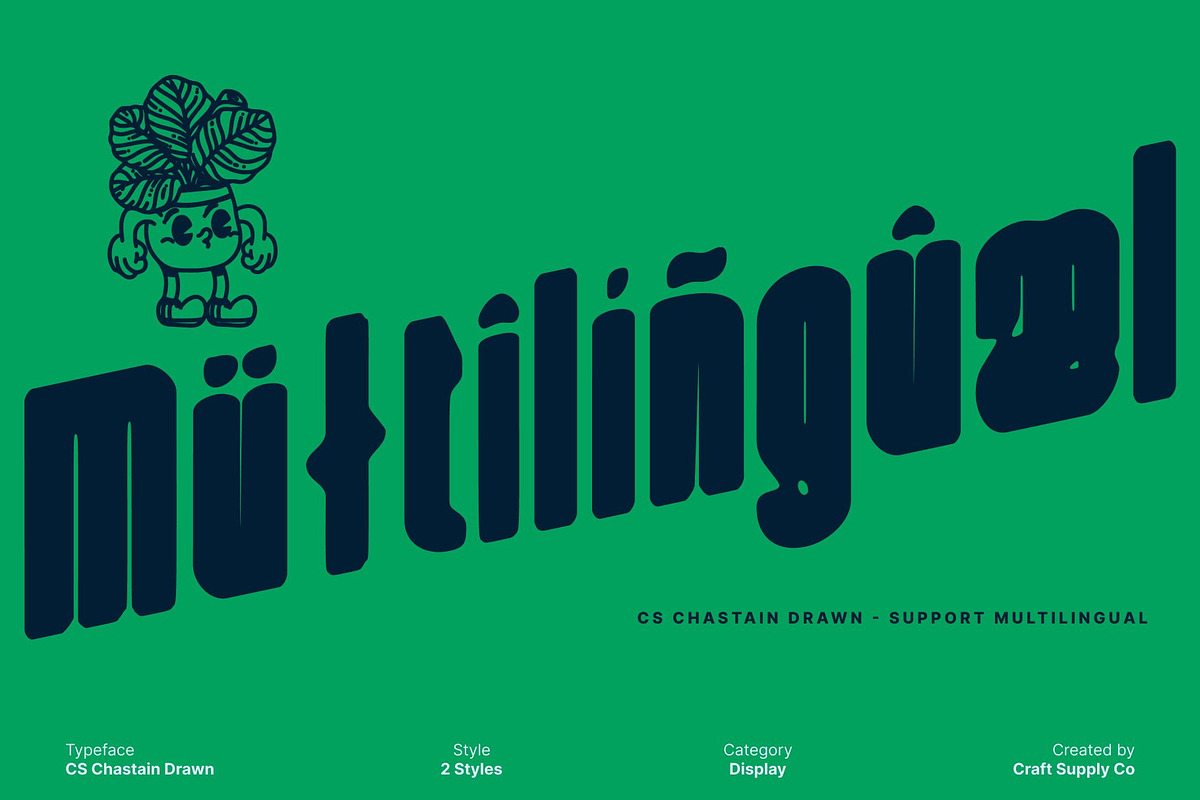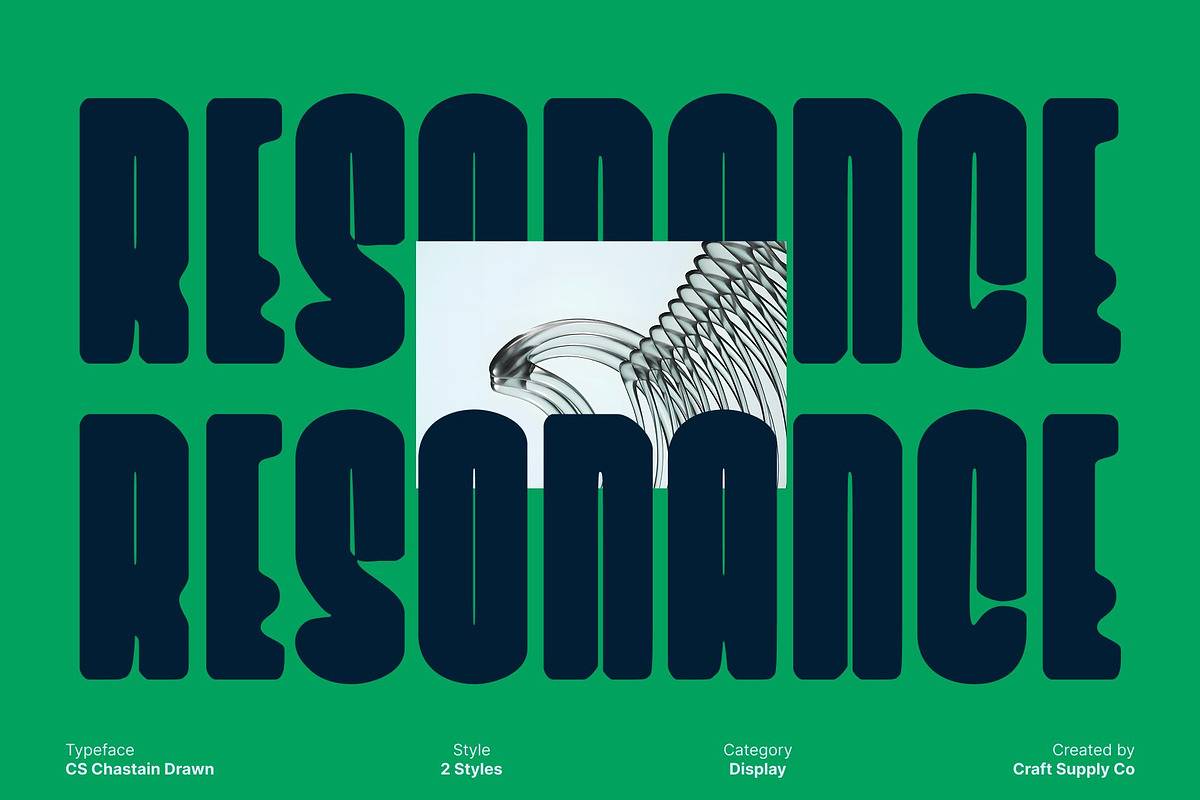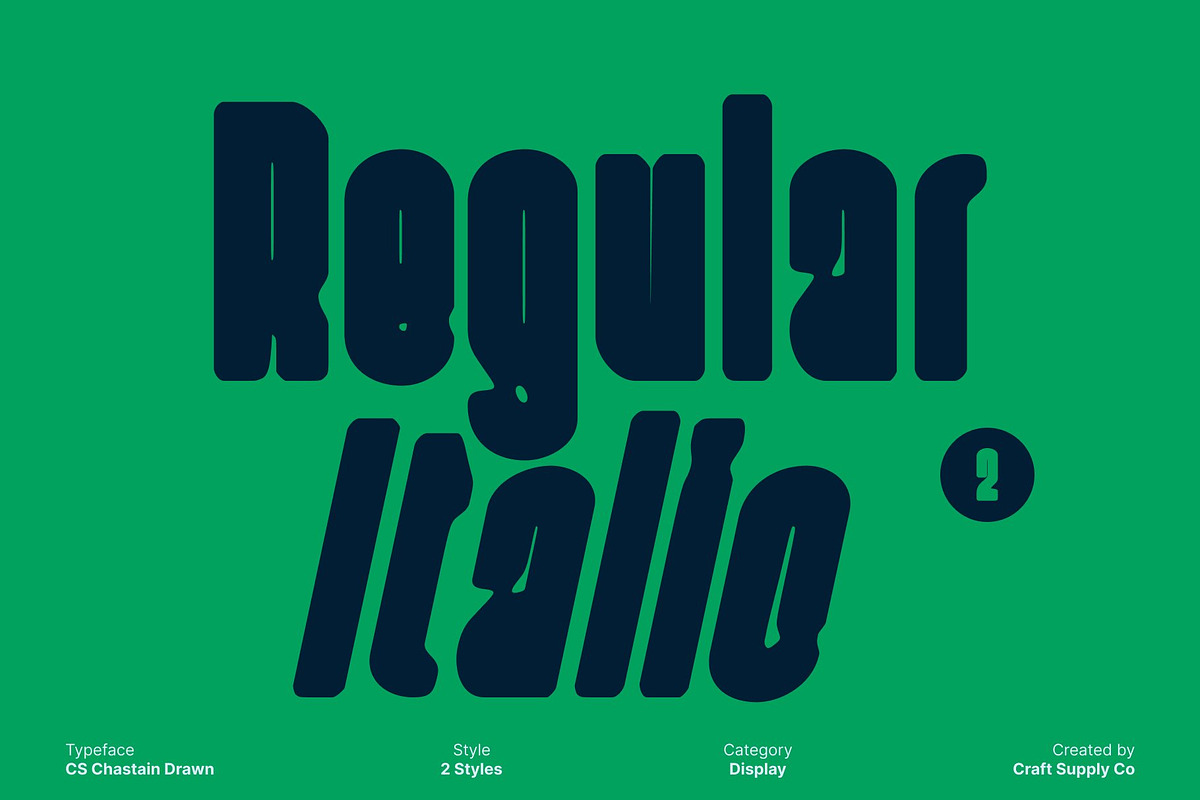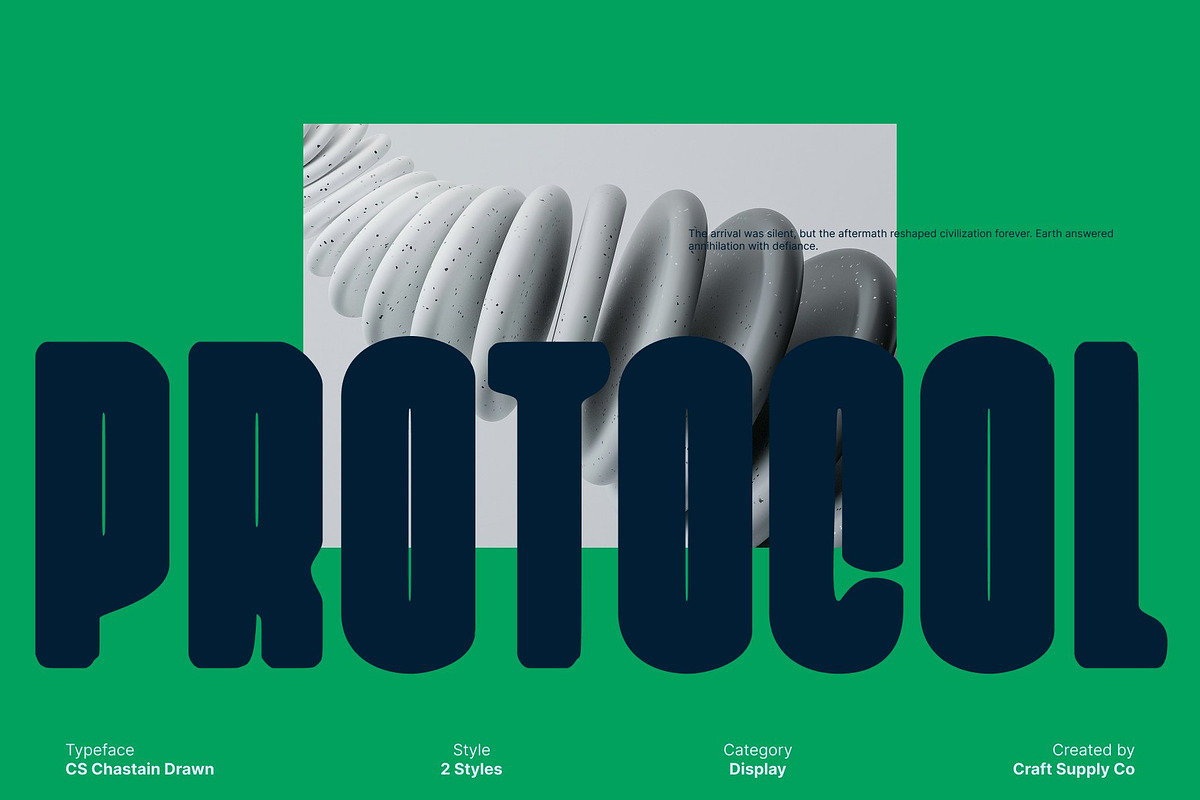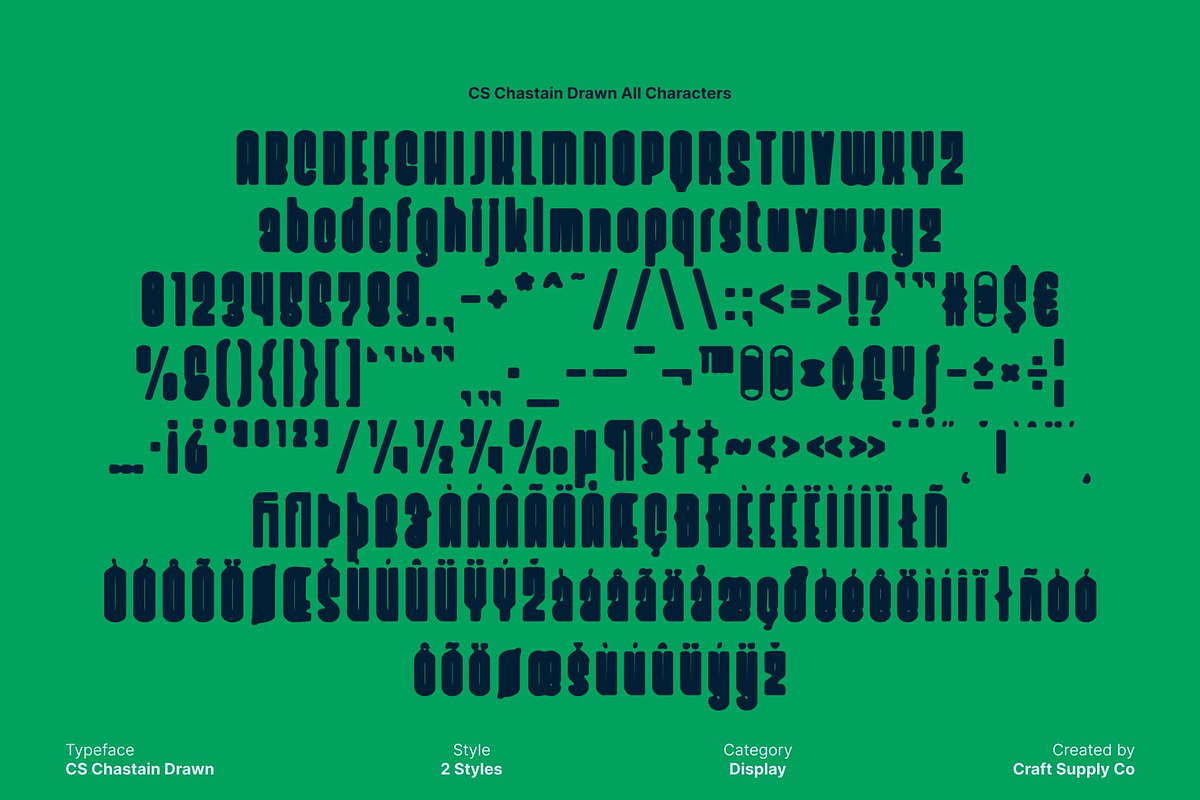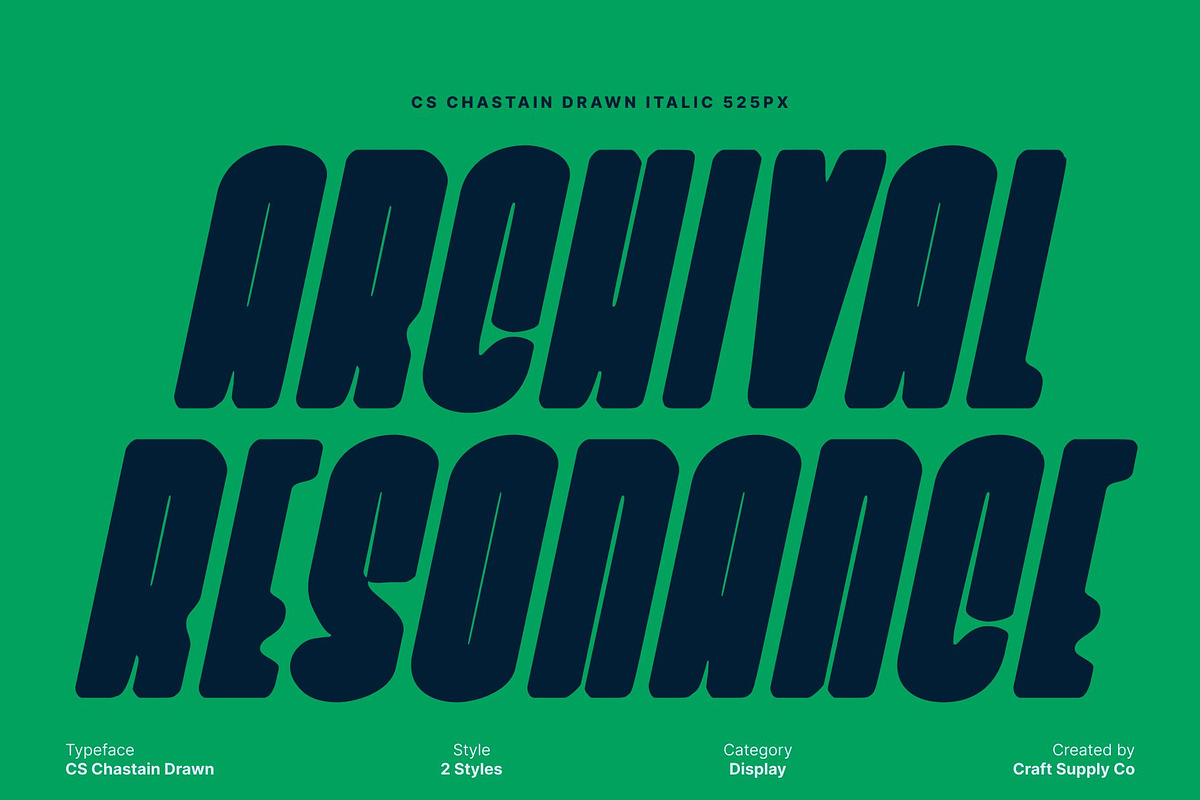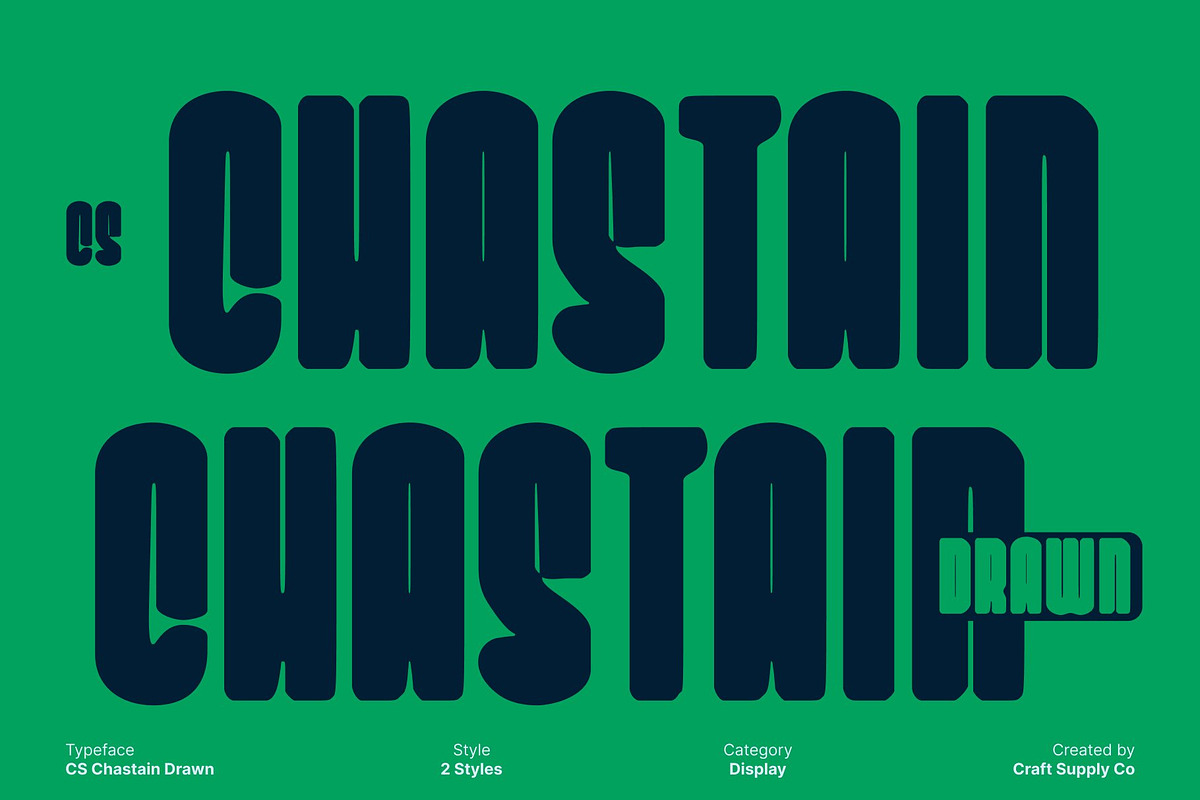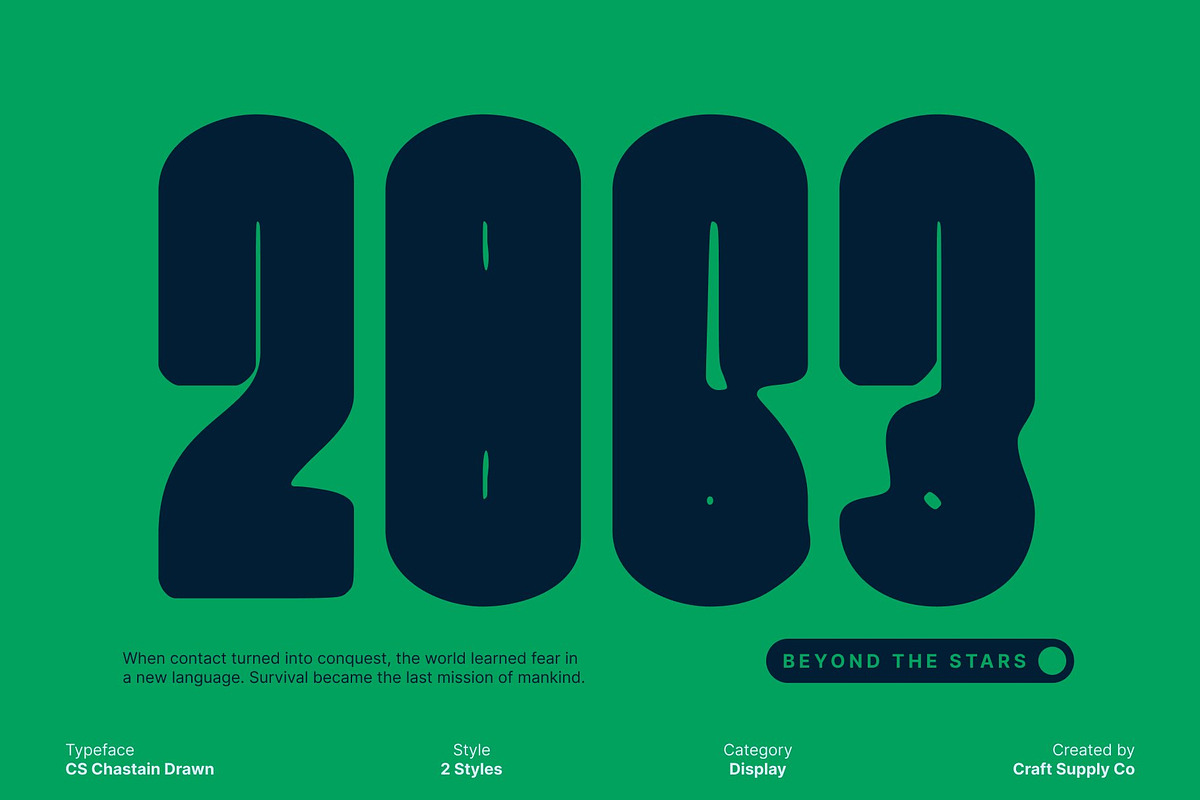
CS Chastain Drawn
CS Chastain Drawn – Modern Condensed Sans Serif with Hand-Drawn Texture
Compact Strength with Modern Appeal This is a condensed sans serif font designed to deliver strong visual impact within limited space. Its compact proportions and firm structure create a confident, modern impression, allowing text to feel powerful without overwhelming the layout. This makes it especially effective for designs that demand clarity, efficiency, and a bold contemporary voice.
Bold Forms with Excellent Readability Built with clean lines and balanced weight, this font maintains high readability even at tight tracking or small sizes. The condensed form helps maximize space while preserving strong letter definition, making it ideal for headlines, posters, labels, and branding systems that need to communicate quickly and clearly.
Hand-Drawn Texture for Artistic Expression The drawn effect adds an artistic, handcrafted texture that gives a more expressive personality. Subtle irregularities and textured details soften its modern structure, creating a natural, organic feel without sacrificing strength. This blend of precision and imperfection brings warmth and visual interest to the typography.
Versatile for Bold Branding and Visual Design This font works beautifully across branding, posters, editorial layouts, and promotional graphics. Its combination of compact power, modern clarity, and artistic texture makes it a versatile choice for designers seeking a strong yet creative typeface that stands out in both digital and print applications.
- CS Chastain Drawn Regular
- CS Chastain Drawn Italic